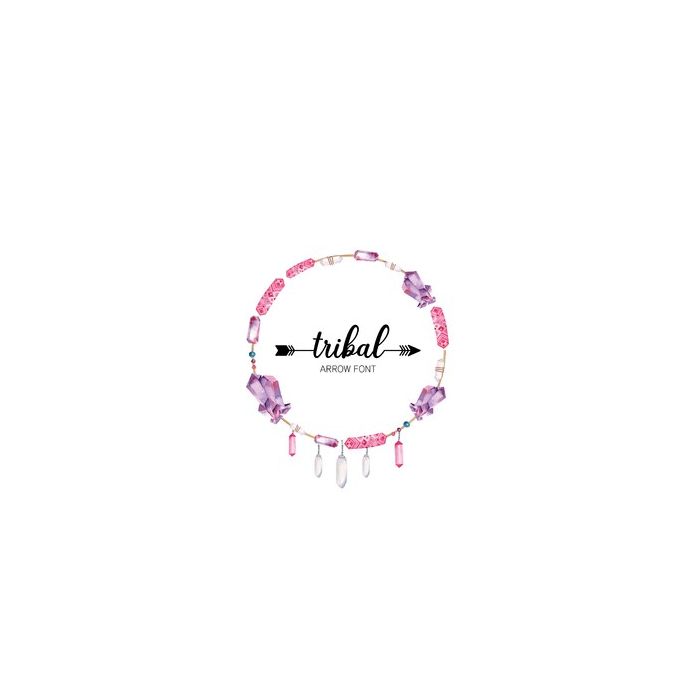
This font includes all lowercase. Uppercase letters, numbers and punctuation have been replaced by a variety of arrow designs. Mix and match to create your own unique designs.